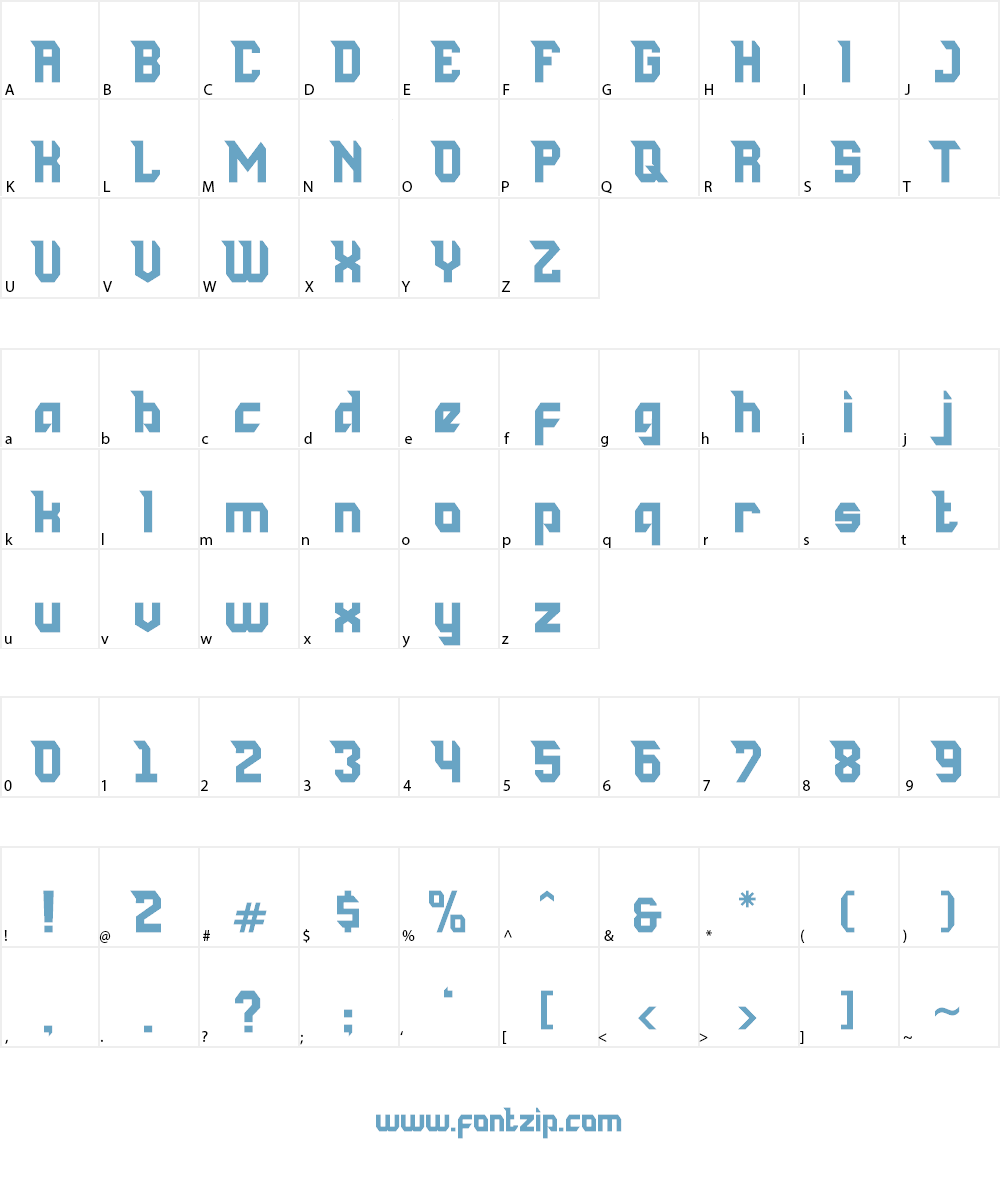
Big Space is a font that is made in a sporty, sci-fi, modern, bold, cutting edge and futuristic style.
It is suitable for titles, logos, quotes, posters, jersey numbers, etc.
There are no alternative characters and it’s very easy to use.